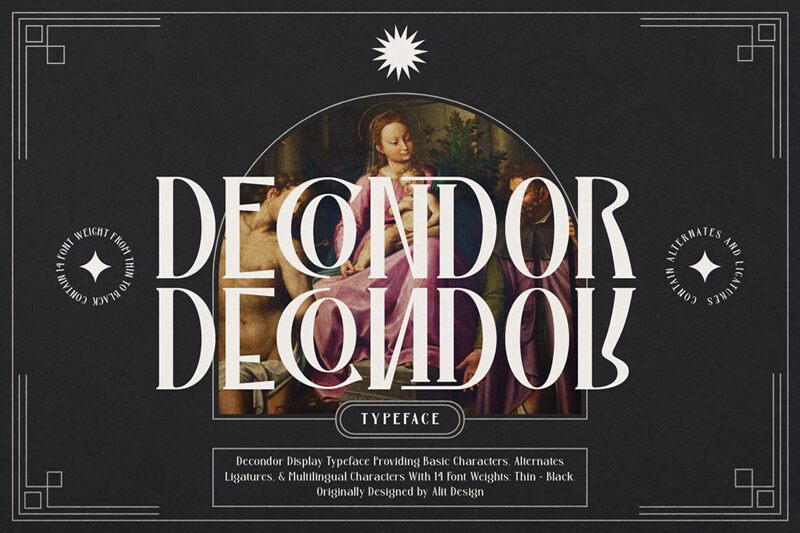
Decondor Thin
Decondor Thin is a narrow, light serif font designed by I Made Dwi Putra Yoga. It's perfect for giving your projects an elegant, timeless feel - from logos and branding to invitations and editorial layouts.